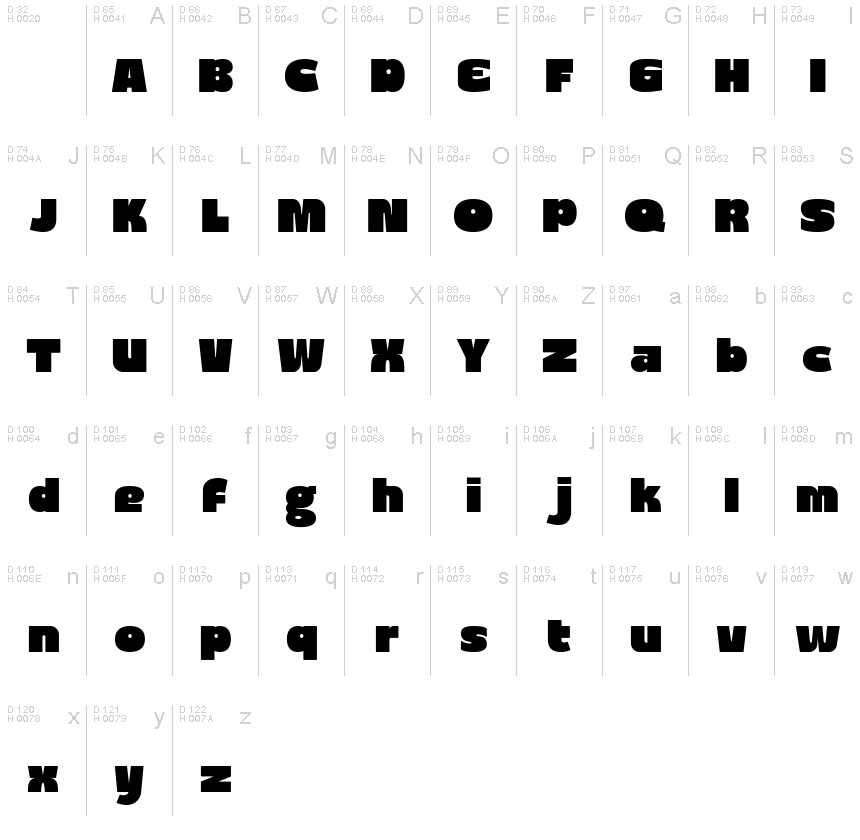
Retro Mango DEMO Extra Bold
Retro Mango Extra Bold is a charismatic display font that exudes confidence with its robust and expanded letterforms. Crafted by Dharmas Studio, it carries a nostalgic flair, reminiscent of vintage design yet versatile enough to complement modern aesthetics. The font's voluptuous curves and substantial presence give it a friendly and approachable vibe.
In the realm of design, Retro Mango Extra Bold shines in contexts where attention-grabbing headlines or impactful branding materials are needed. Its boldness makes it an excellent choice for posters, signage, product packaging, and any project desiring a touch of retro charm with a strong visual impact. This font marries personality with readability to make your message stand out with an unforgettable style.